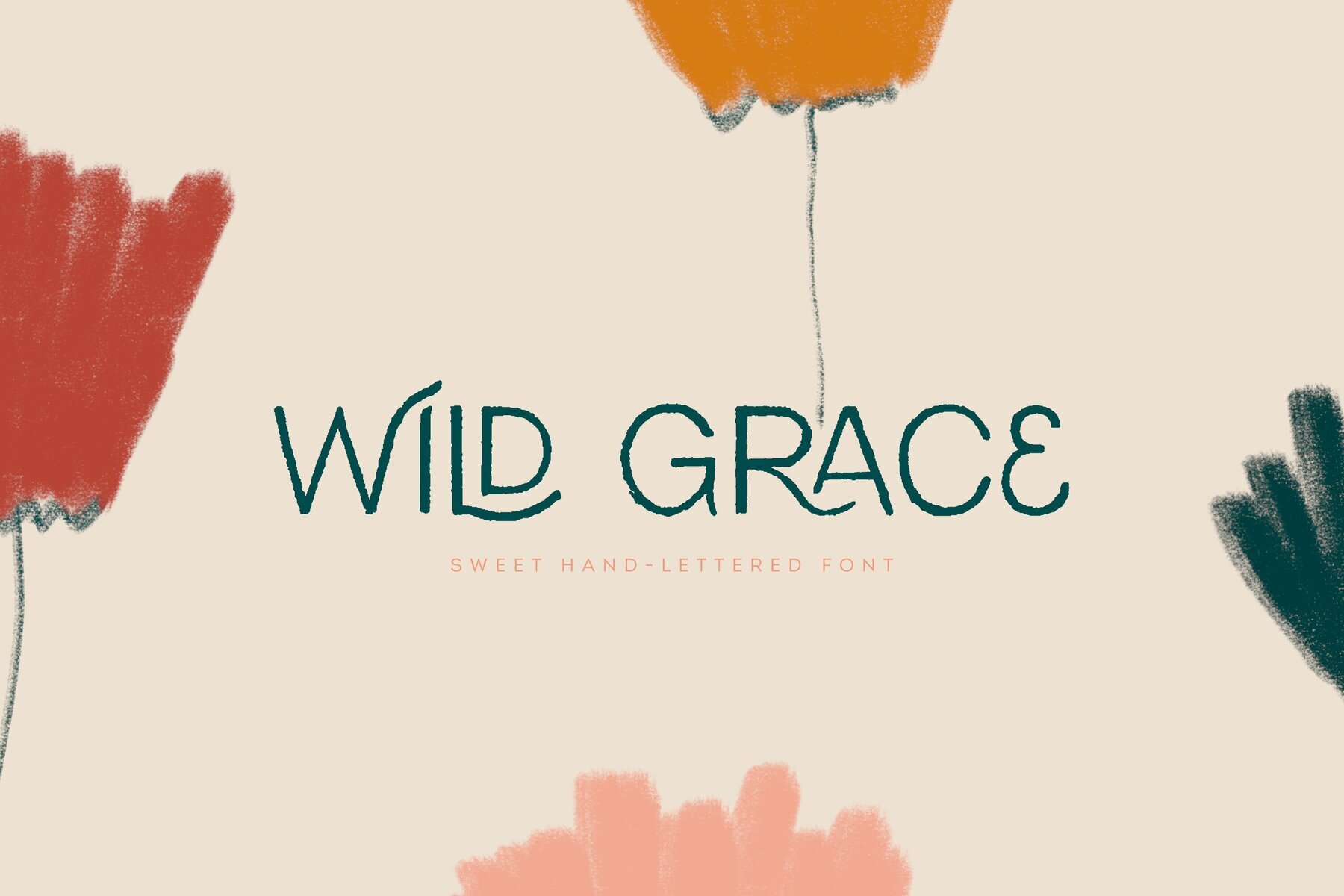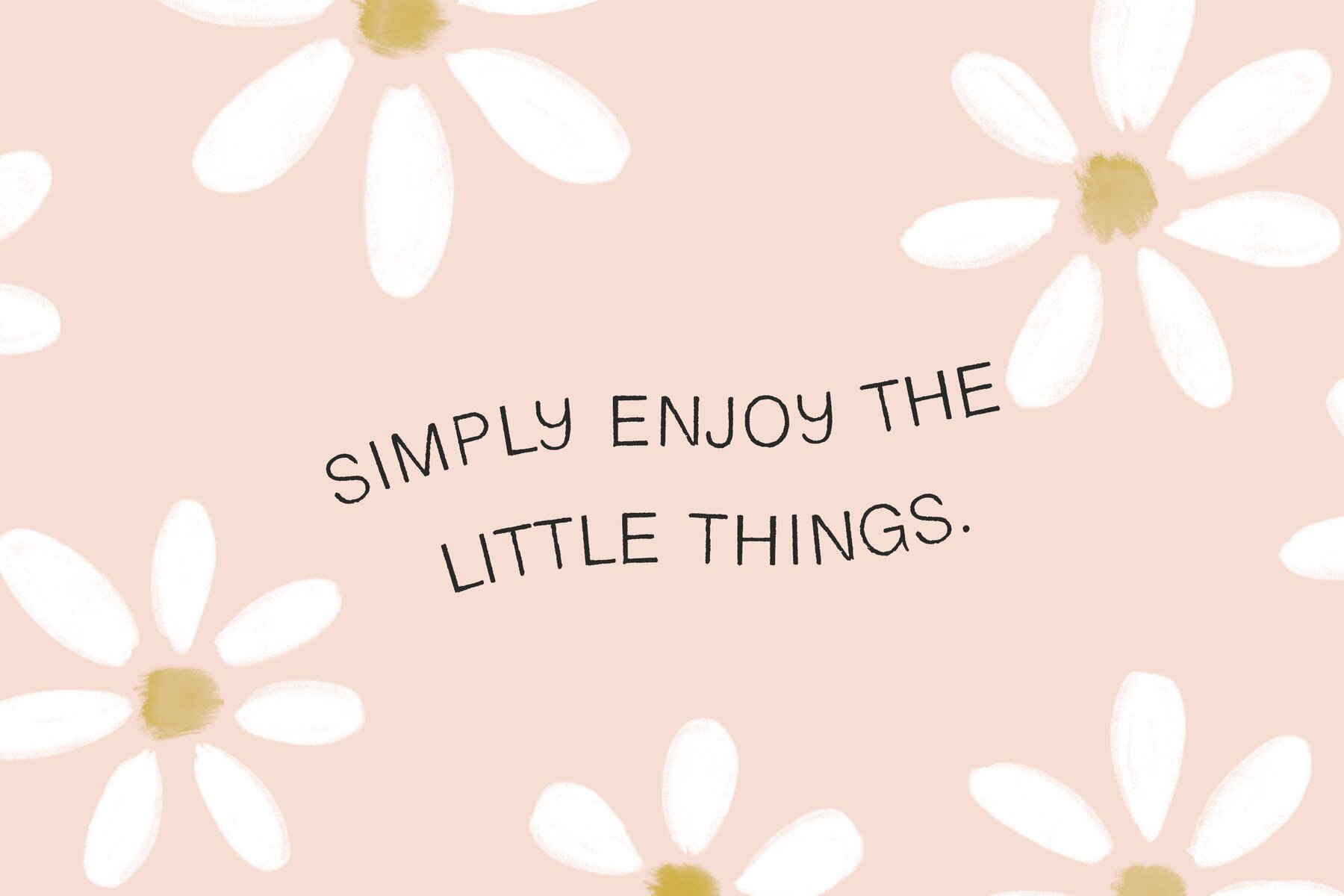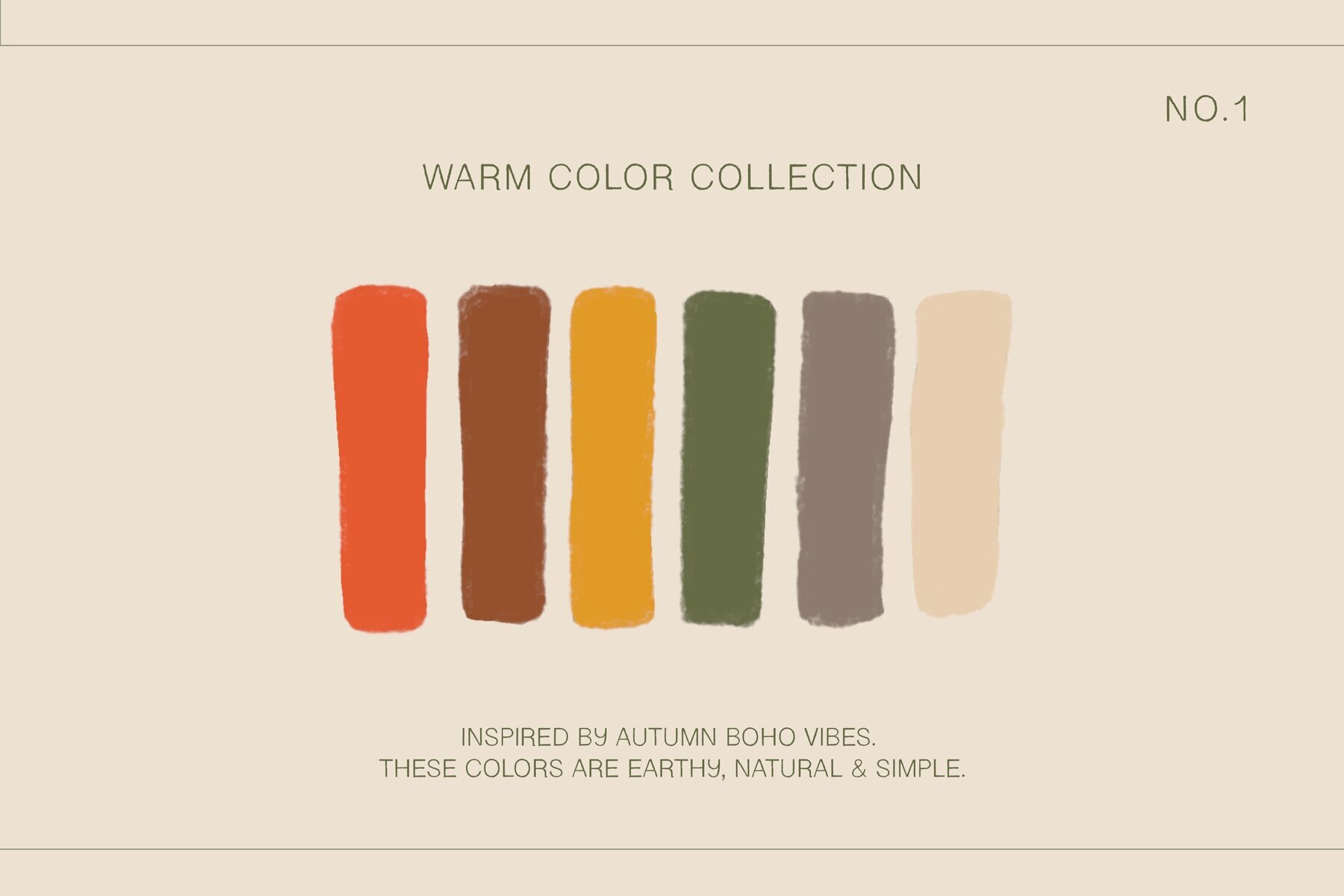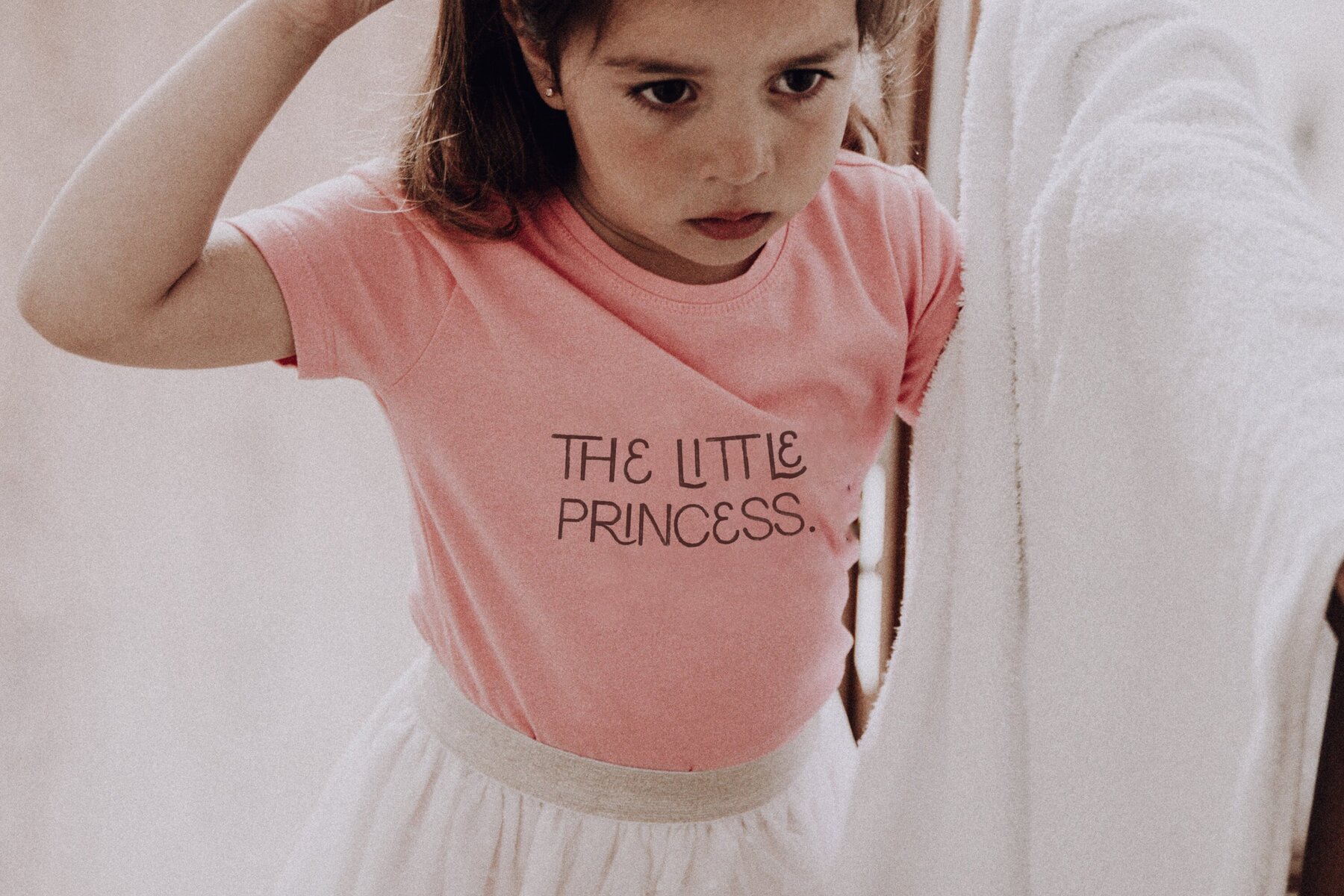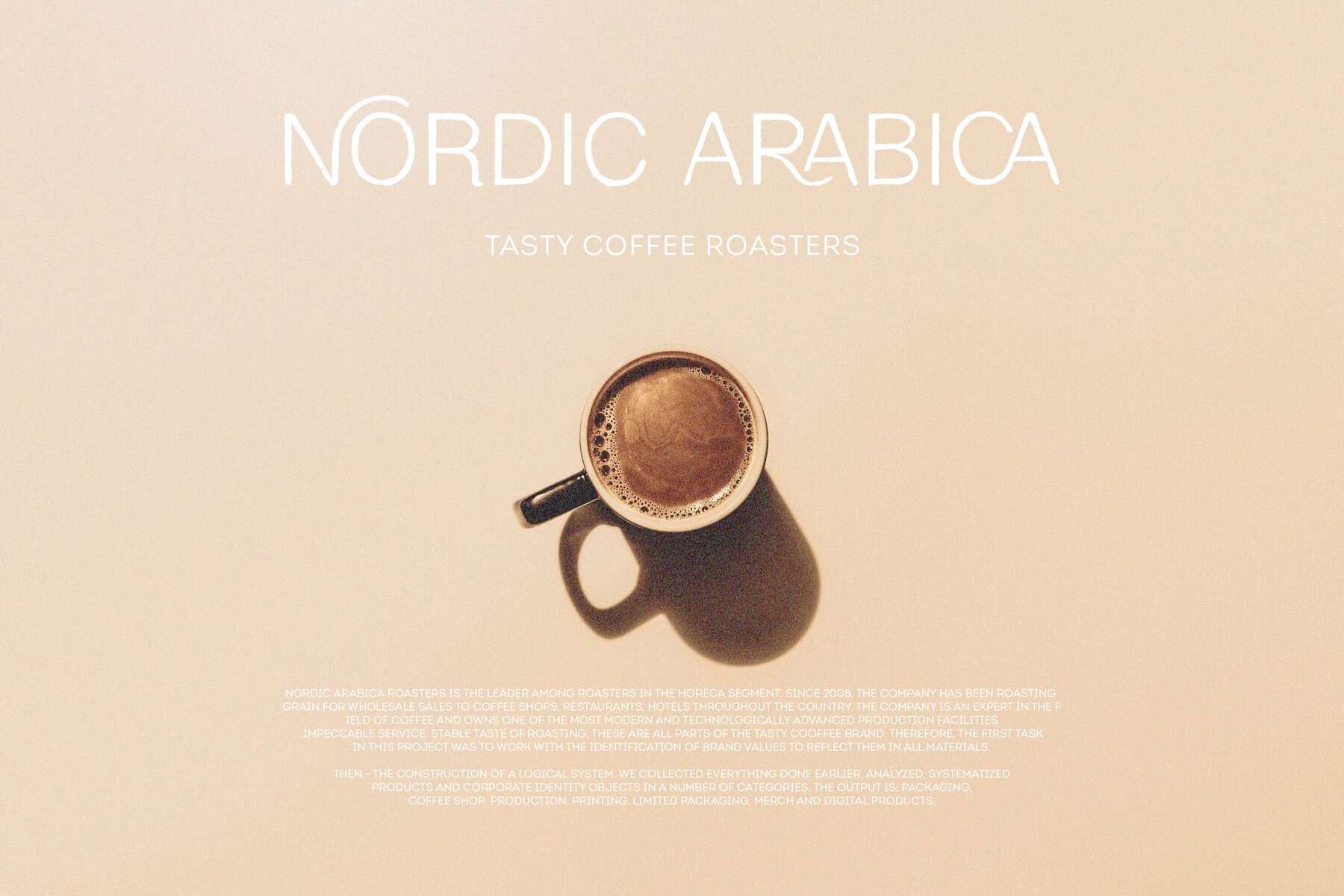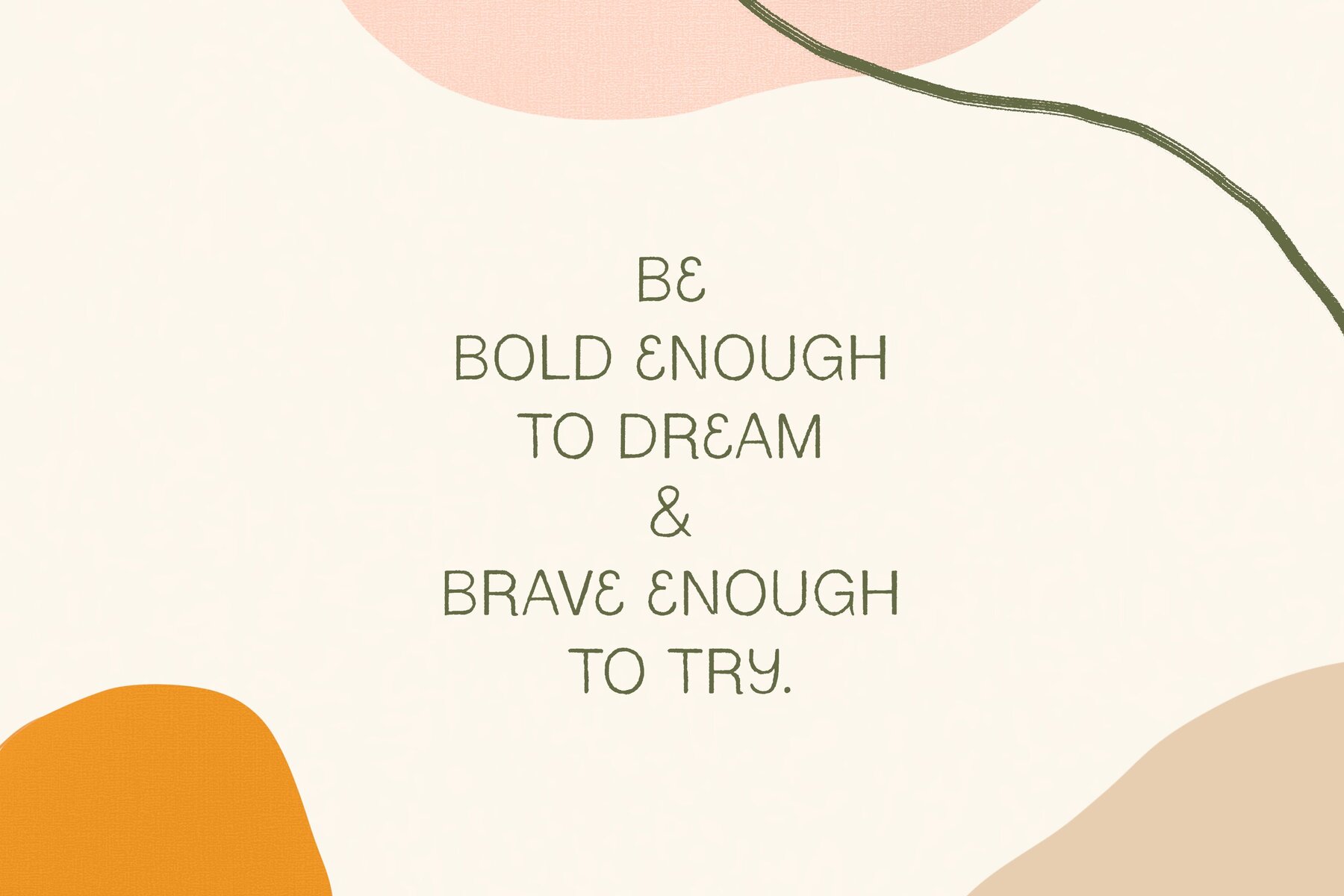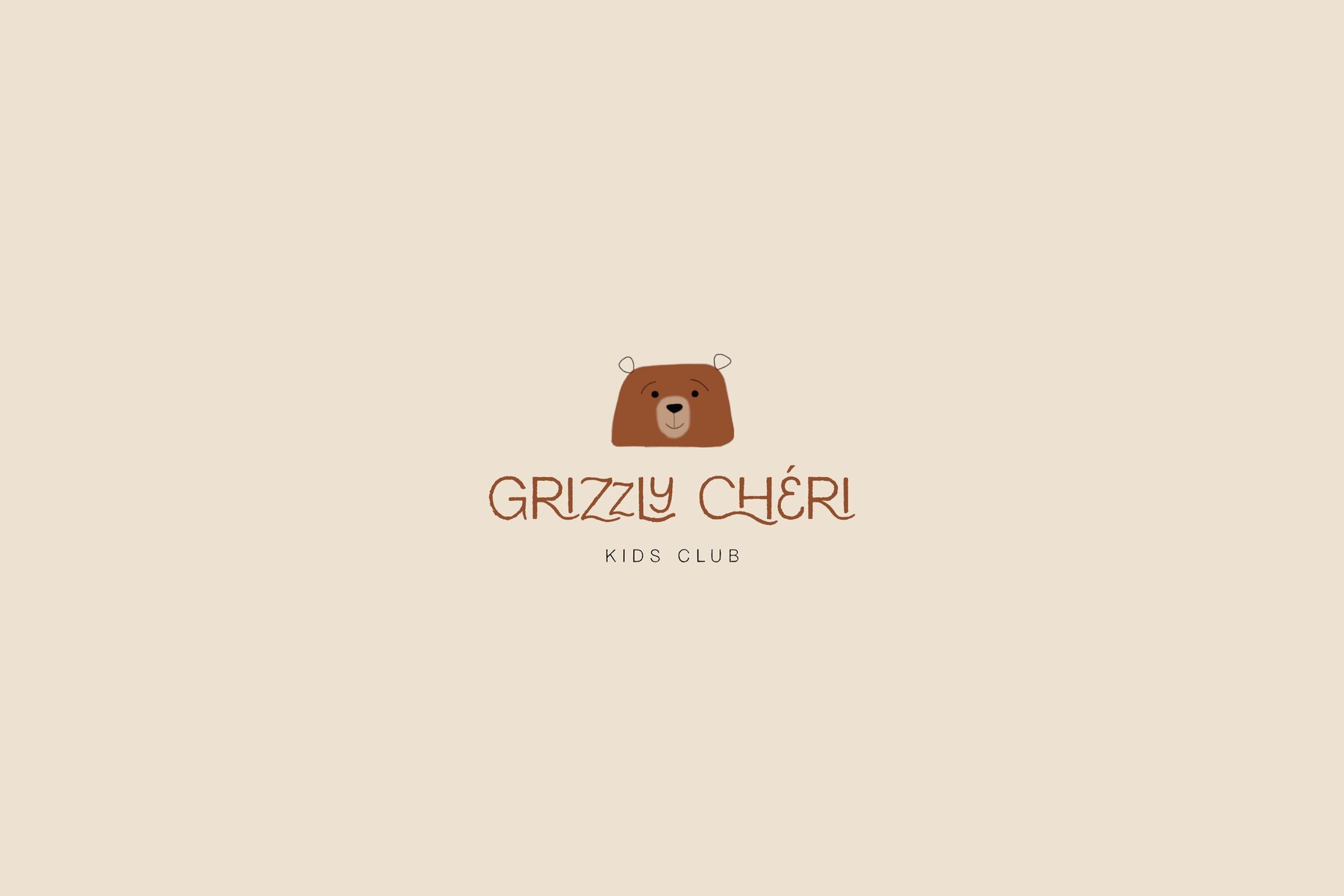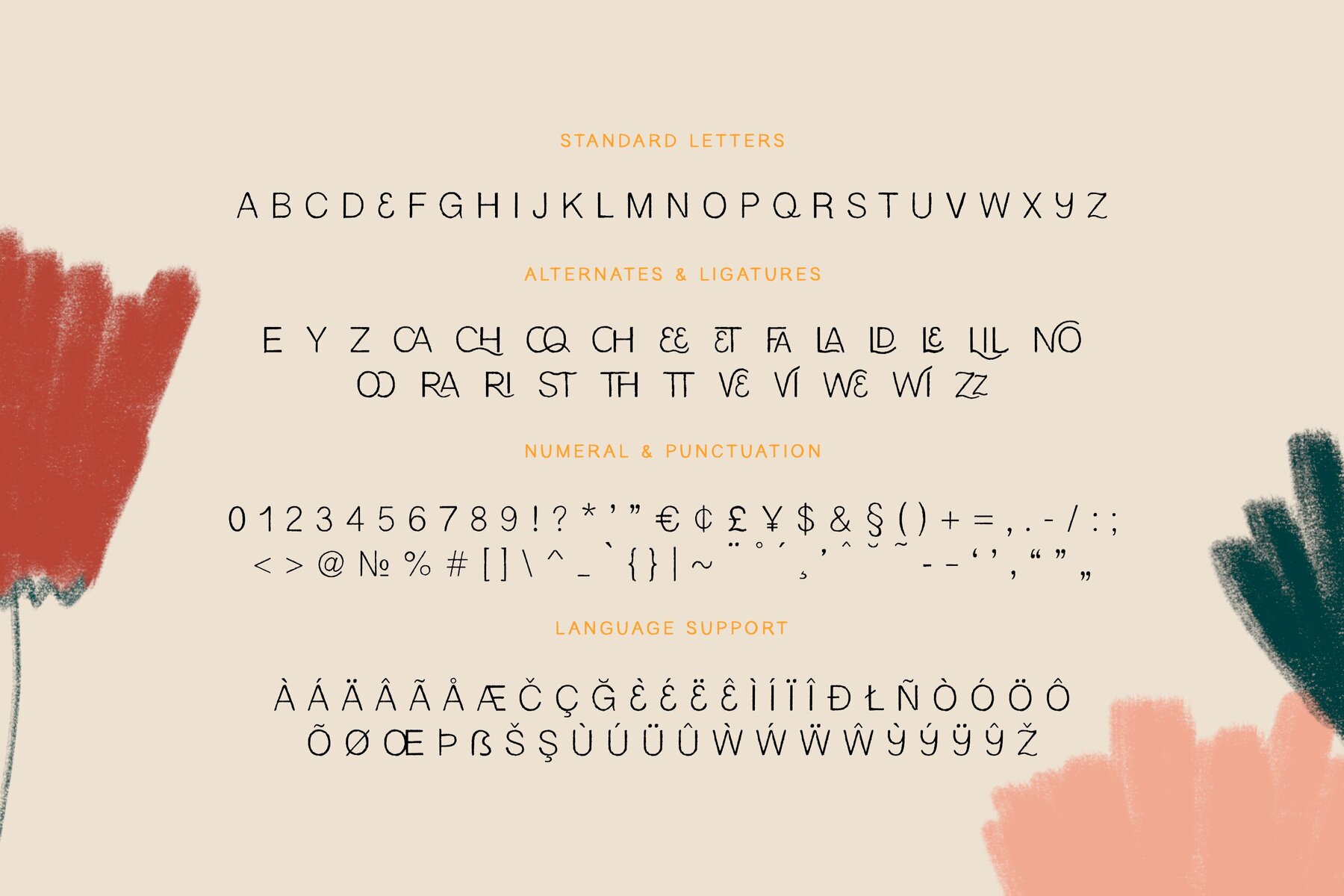
Wild Grace Font
Wild Grace is a beautifully crafted handwritten font that includes elegant ligatures, perfect for adding a personal touch to your projects. Whether you’re designing for print or digital media, this font offers a natural and fluid style that stands out. Wild Grace supports a wide array of languages, making it a versatile choice for international projects. Supported languages include:Wild Grace: Handwritten Font with Ligatures